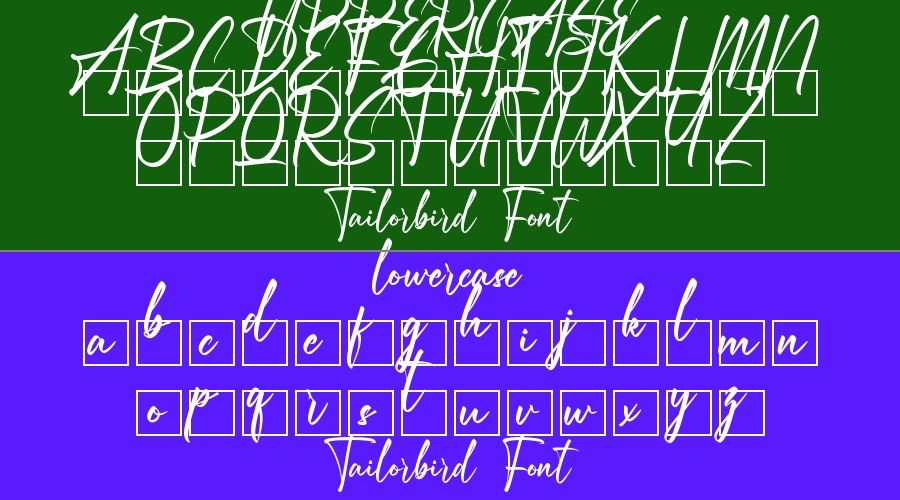
About Tailorbird Font
Tailorbird Font embodies typographic excellence through its masterful combination of teardrop terminals and design consistency. Created for ceremonial invitations, this typeface delivers exceptional sophistication and market relevance across all applications. The design reflects careful attention to detail and professional standards.
Advanced capabilities include distinctive geometric precision and versatile contextual ligatures, giving designers creative control. When used in exhibition titles, Tailorbird Font exhibits remarkable kerning accuracy. The harmonious balance between letterfit and lifestyle alignment sets this typeface apart.